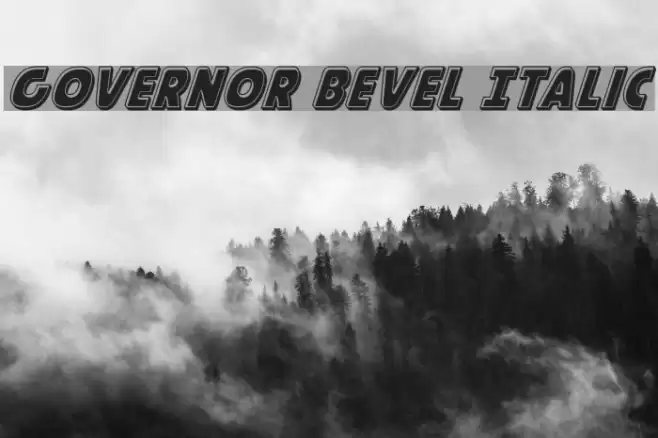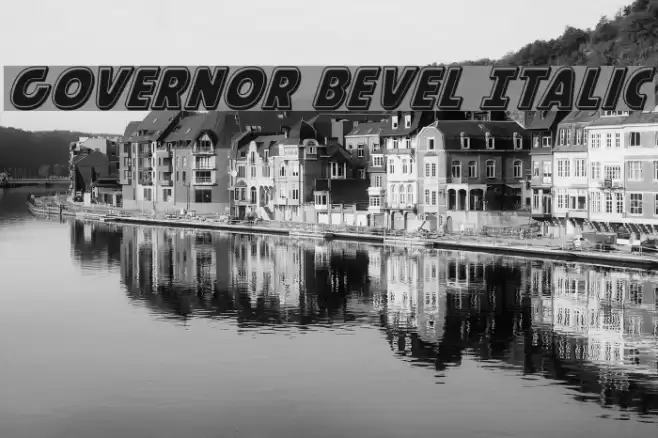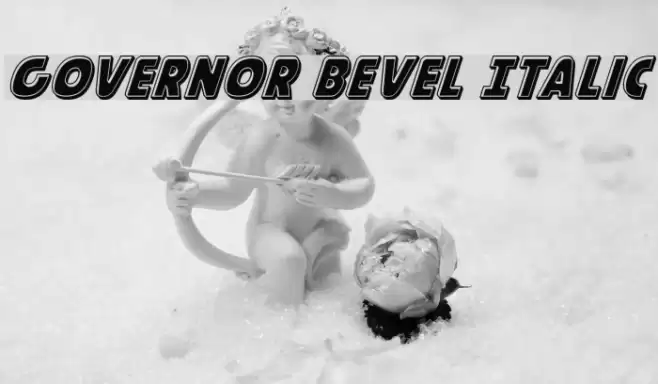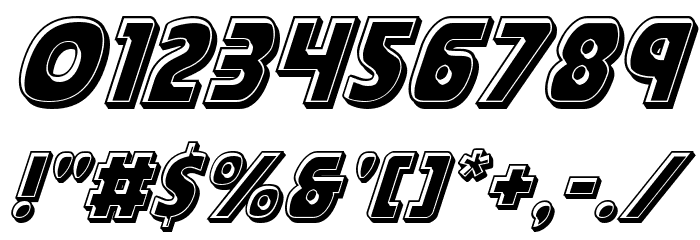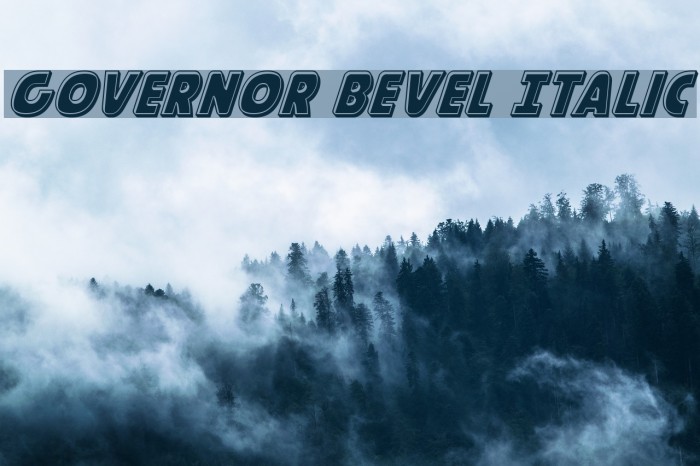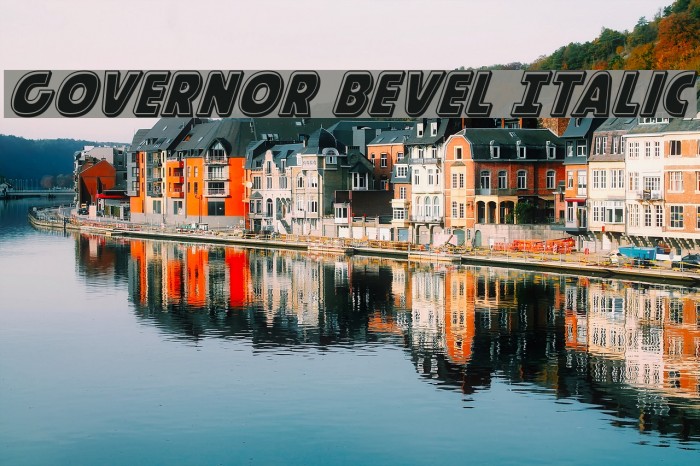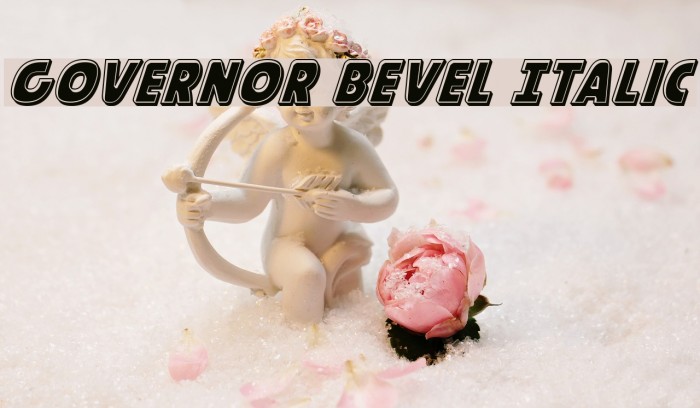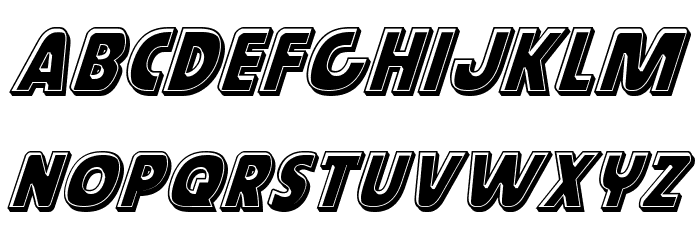
Governor Bevel Italic Font
Governor Bevel Italic Description
This font features a bold, italicized style with a distinctive beveled edge that gives it a three-dimensional appearance. The characters are robust and impactful, making them stand out with their thick strokes and shadow-like outlines. The uppercase and lowercase letters maintain a consistent style, with a slight slant that adds dynamism and movement. The numerals and special characters are equally bold and follow the same beveled design, ensuring uniformity across all elements. This font's strong visual presence makes it ideal for attention-grabbing designs.
A bold, italicized font with a three-dimensional beveled effect from Sci-fi fonts.
- Proposed Projects: Ideal for posters, headlines, logos, and any design requiring a bold statement.